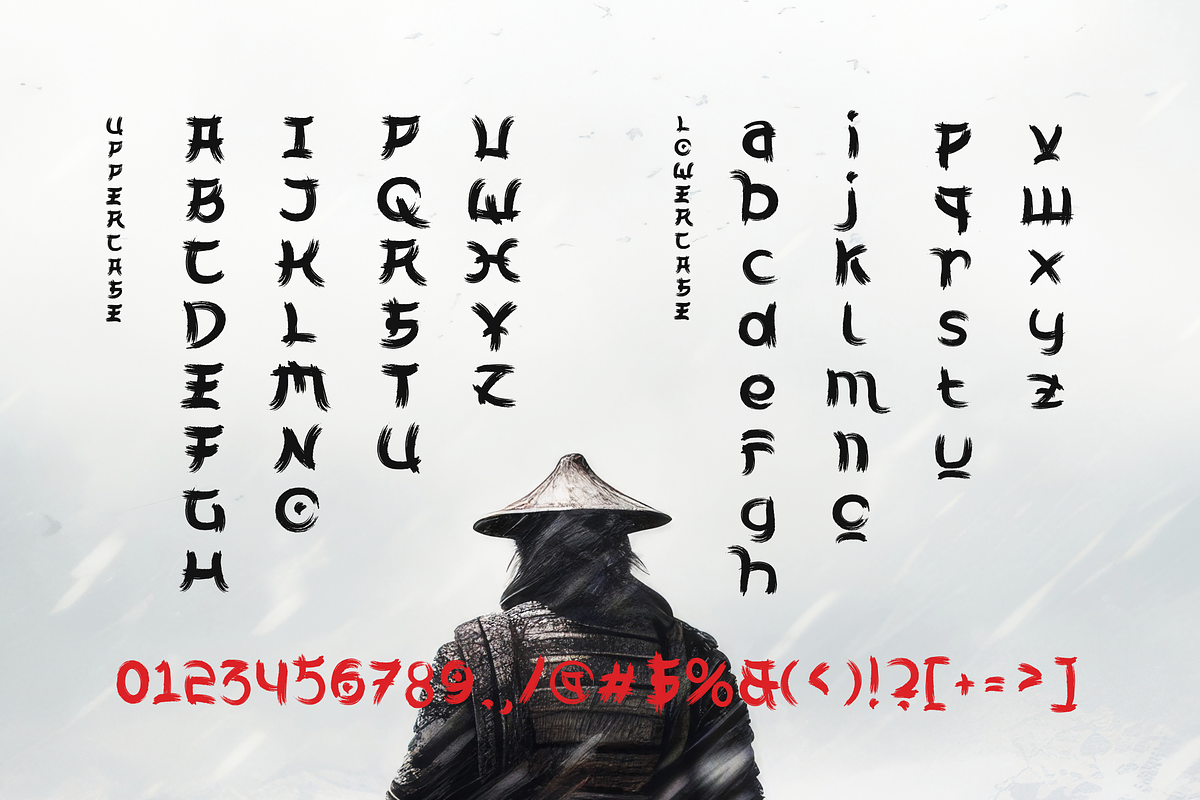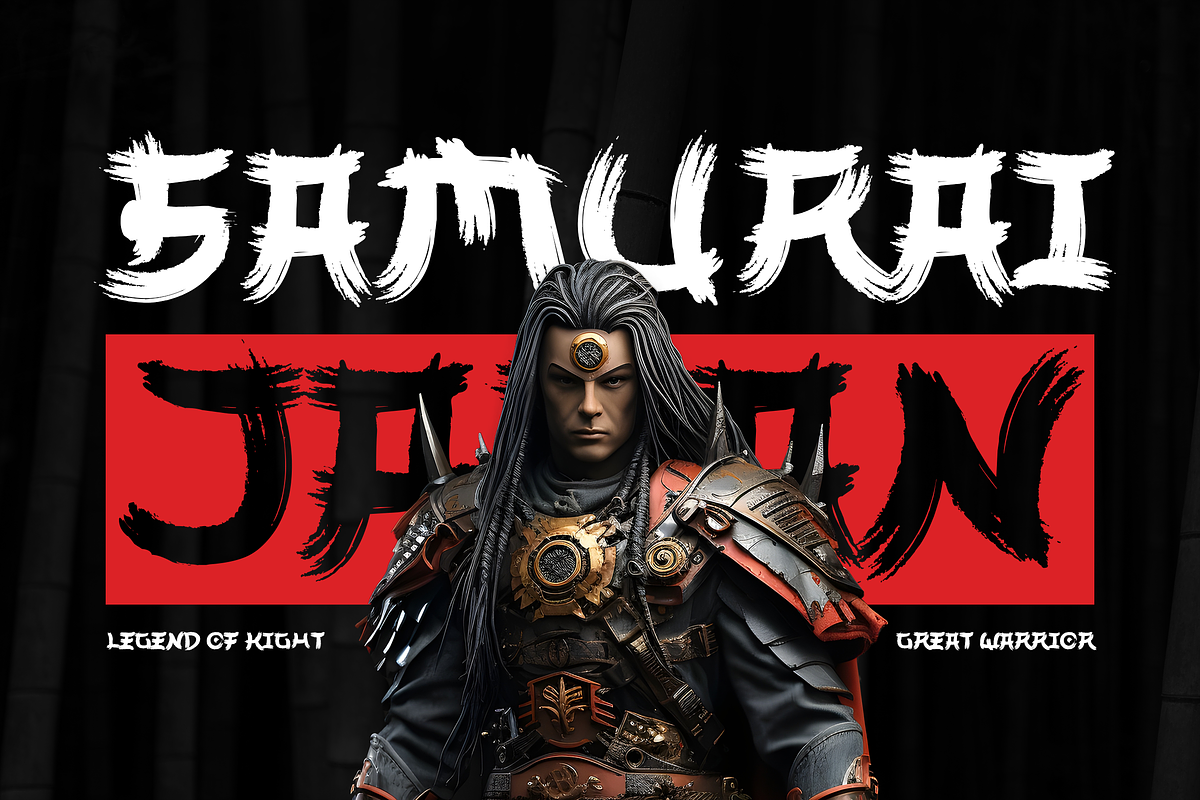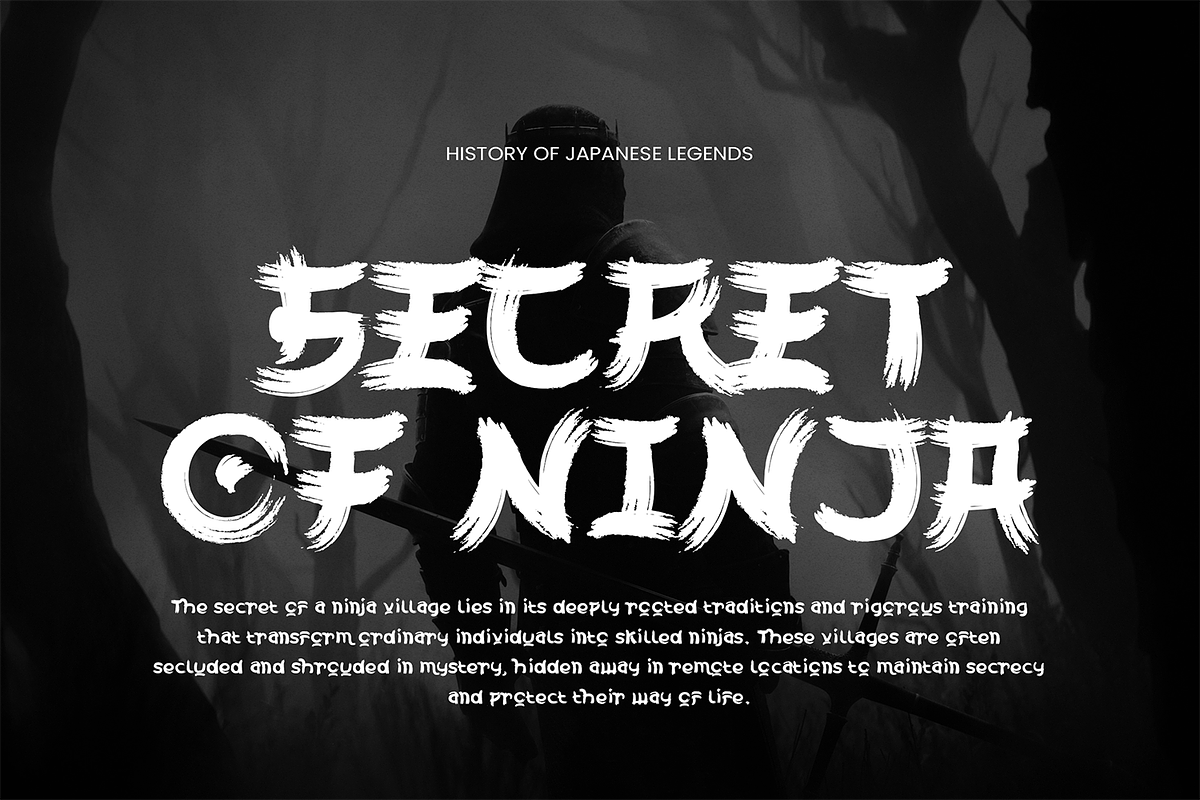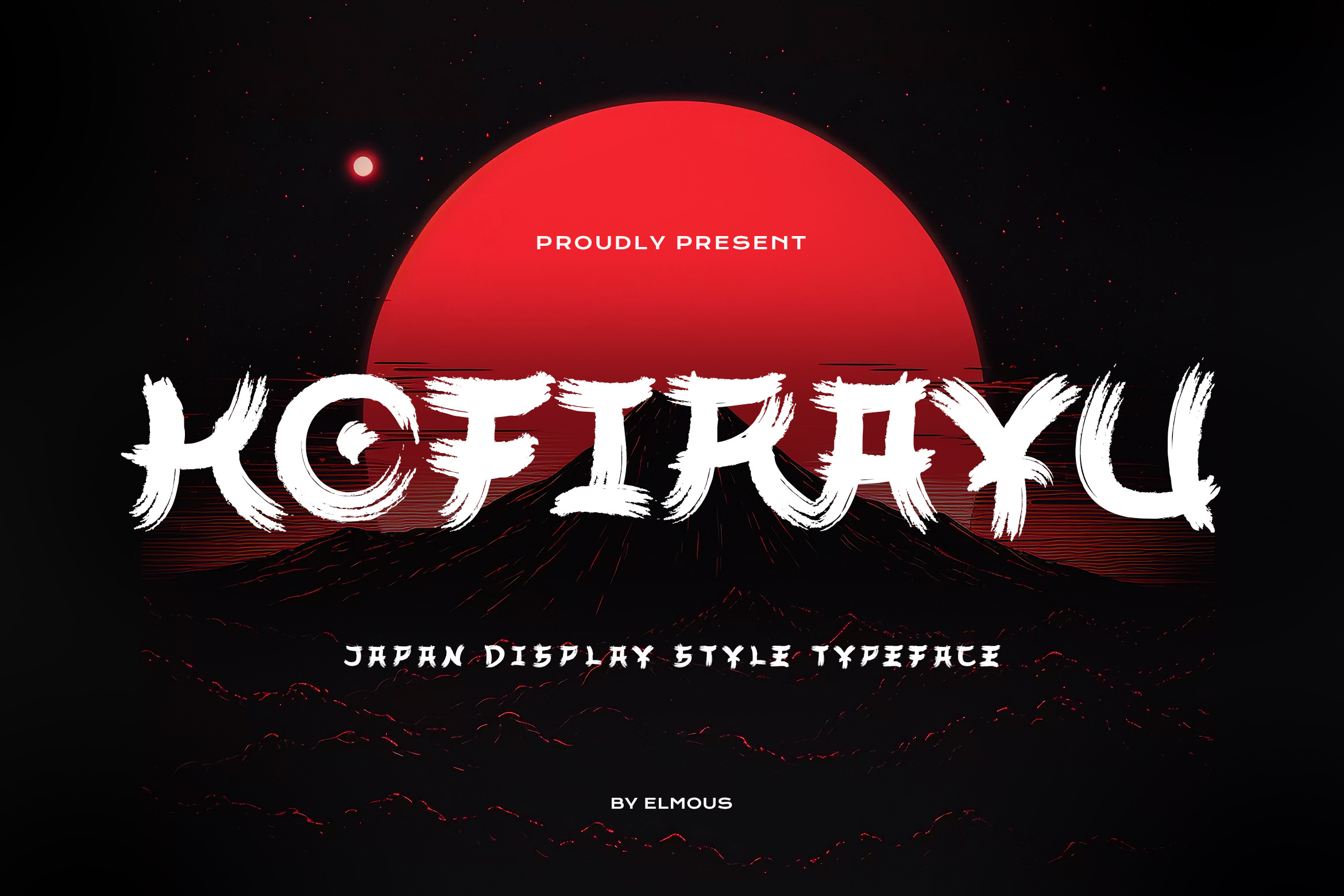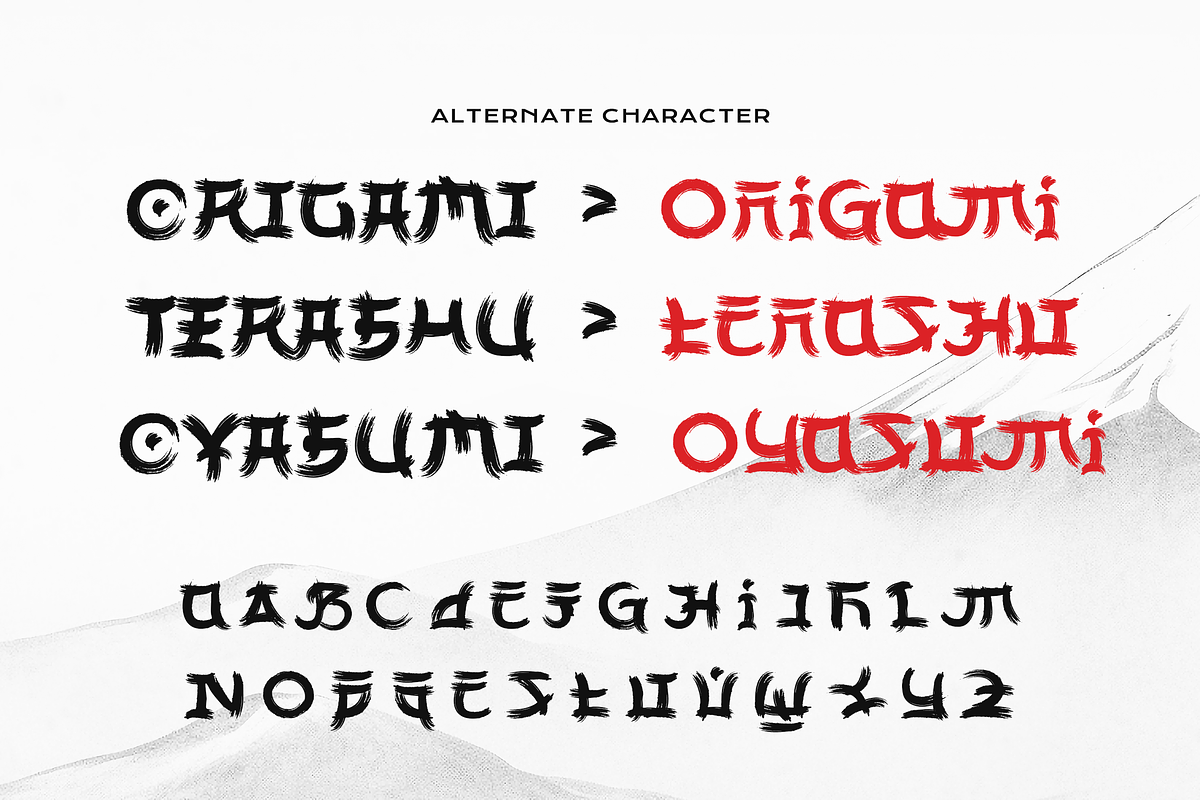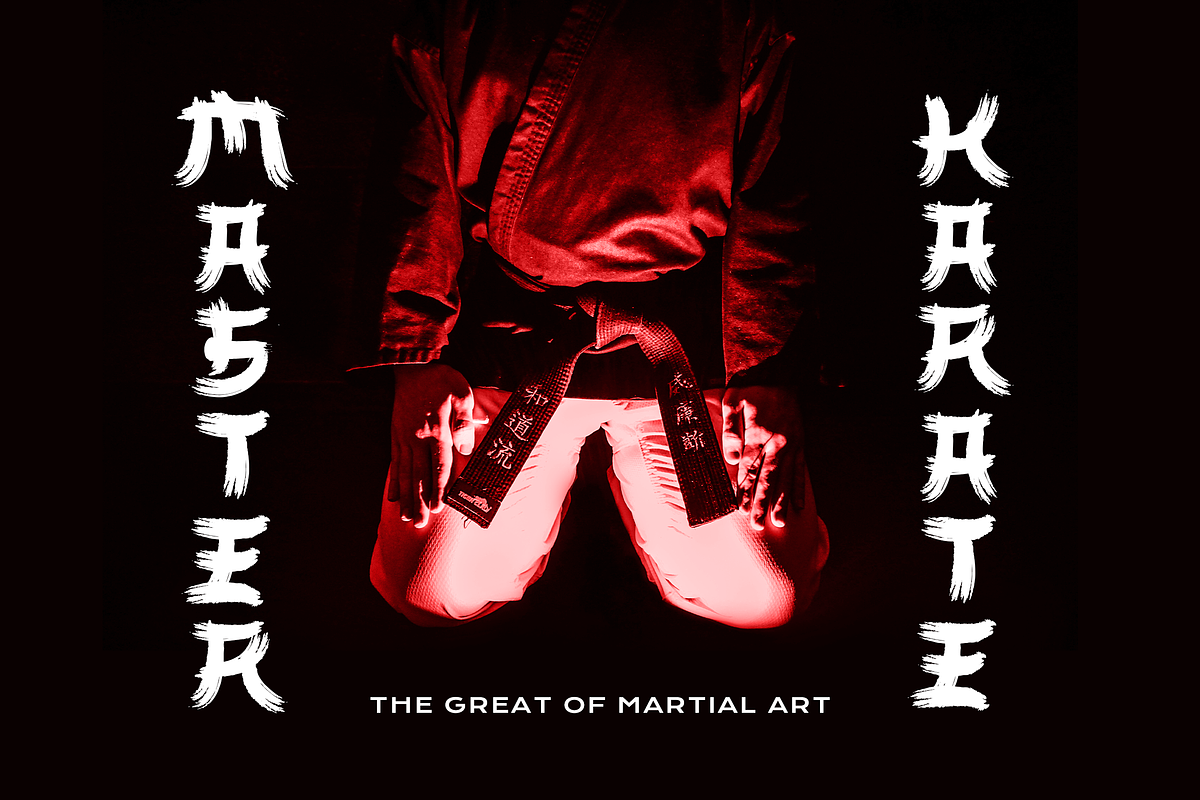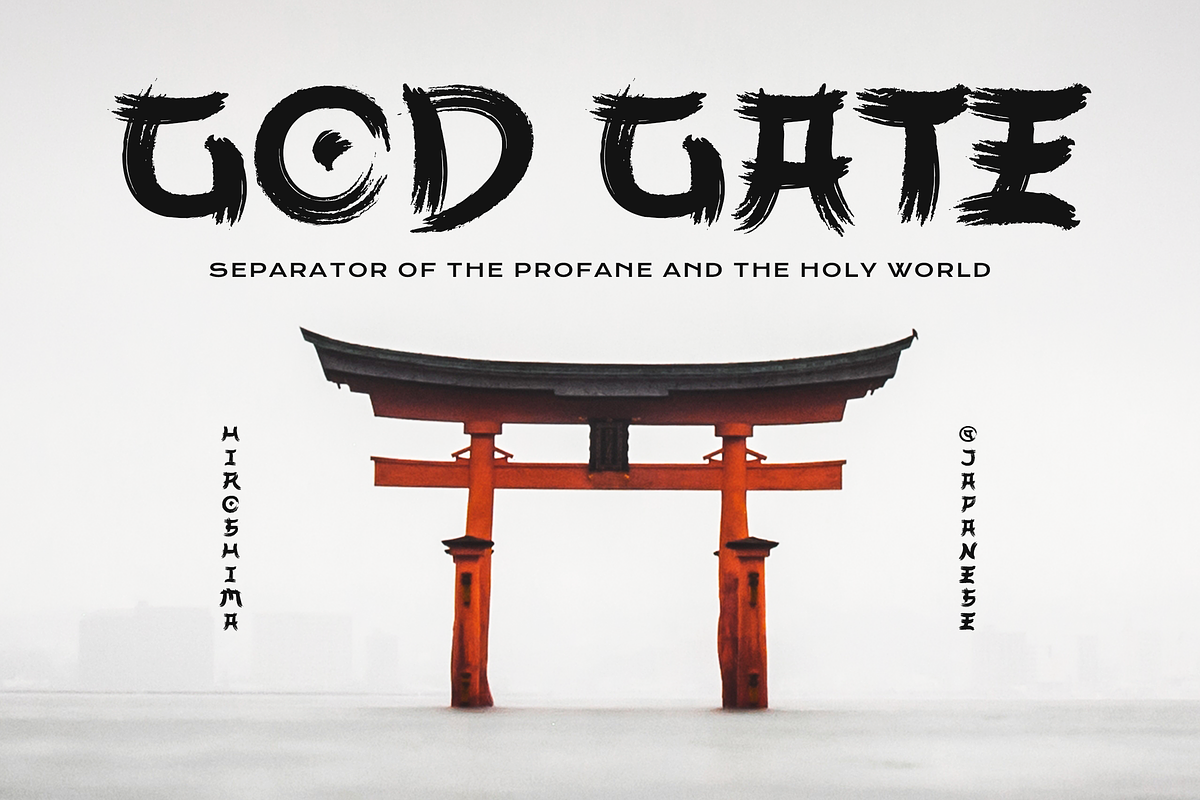
Kofirayu - Japanese Brush Font
Introducing Kofirayu, a powerful and authentic display typeface that channels the spirit of ancient Japan into modern design. Inspired by the bold strokes of traditional brush calligraphy, Kofirayu is designed to make a strong and lasting impression.
Each letter is crafted with a textured, realistic brush effect, giving your text an energetic and handcrafted feel.
Perfect for quotes, branding, and expressive typography. The font includes uppercase, lowercase, numerals, punctuation, and alternate characters, ensuring flexibility for various creative needs. Whether you're crafting a samurai inspired poster, a martial arts academy identity, or an epic video game title, this font channels strength, heritage, and bold visual storytelling.
Uppercase and Lowecase Characters.
PUA Encoded Characters.
Numerals and Punctuations.
Alternates and Ligatures.
Multilingual Support.